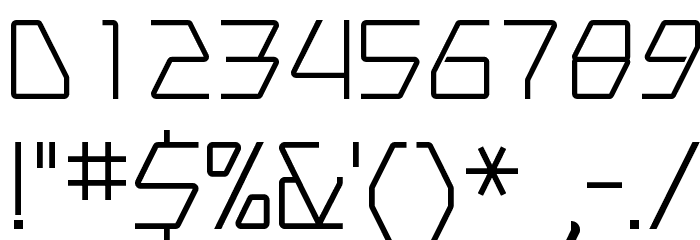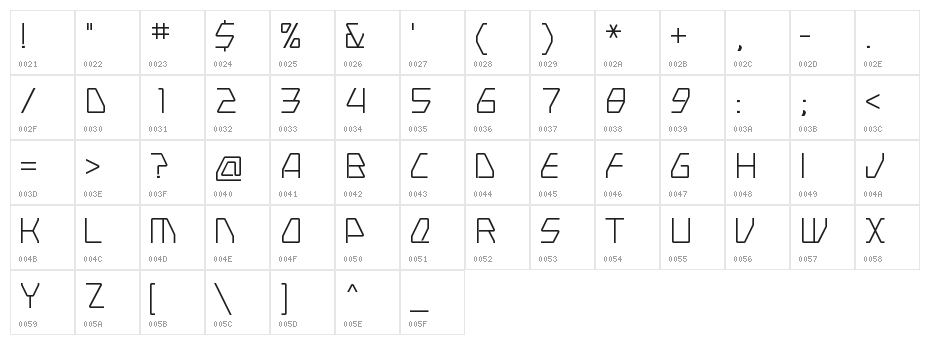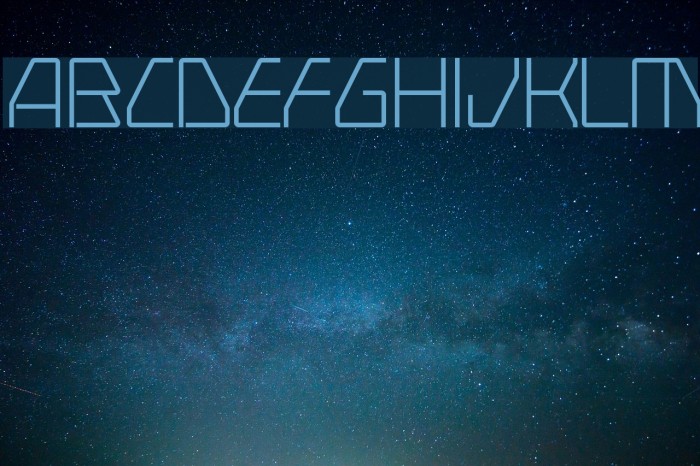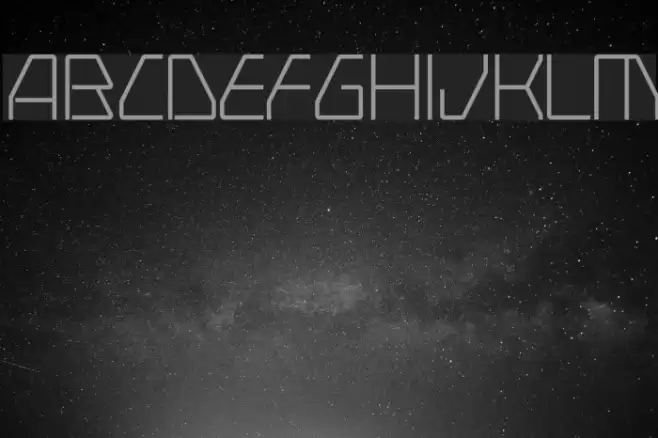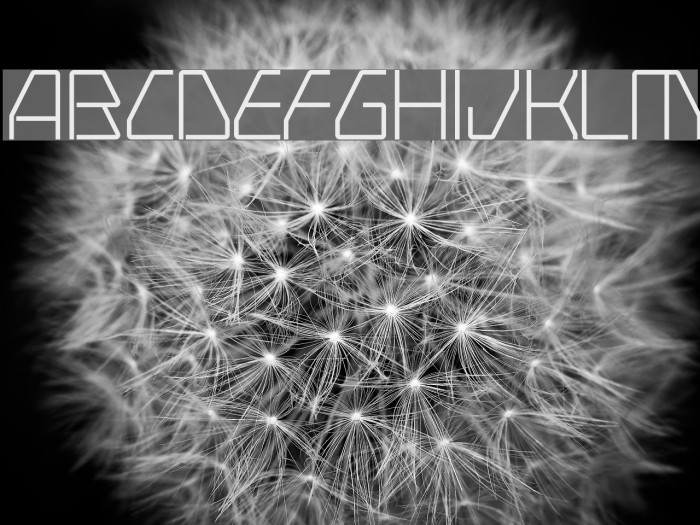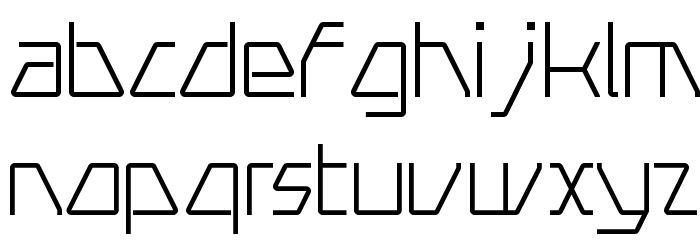
Swerve Light Font
Swerve Light Description
This font features a geometric and futuristic design, characterized by its angular and linear structure. The characters are composed of straight lines and sharp angles, giving it a modern and tech-inspired appearance. The uppercase and lowercase letters maintain a consistent style, with a uniform stroke width that adds to its sleek and minimalistic look. The numerals and special characters follow the same design principles, ensuring a cohesive visual identity across all glyphs. This font's unique style makes it stand out, suitable for projects that require a contemporary and edgy aesthetic.